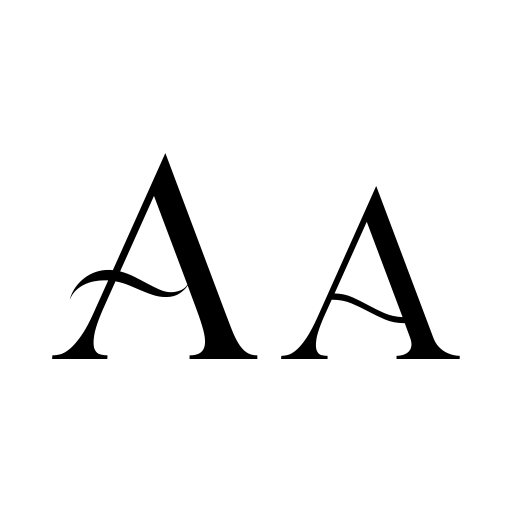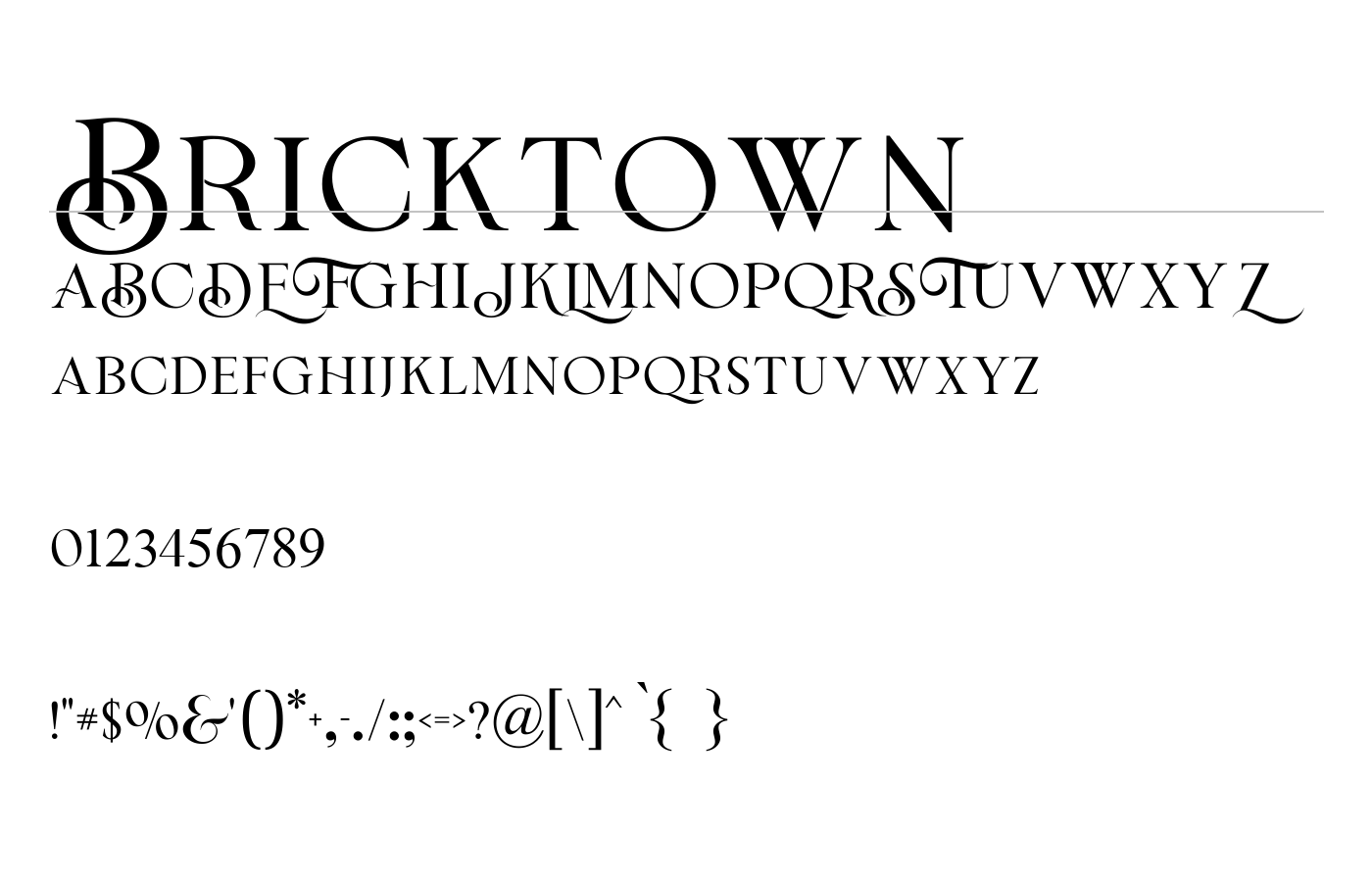
Bricktown is a delicate serif font with a refined, high-contrast stroke style and elegant, bracketed serifs that bring a classic and sophisticated feel. Its decorative flourishes on certain letters add a unique, artistic touch, making it ideal for upscale branding, editorial headlines, or luxury packaging where a stylish, vintage personality is desired. This font works best in prominent display roles that benefit from its graceful and ornamental character.
Bricktown Font
About Bricktown Font